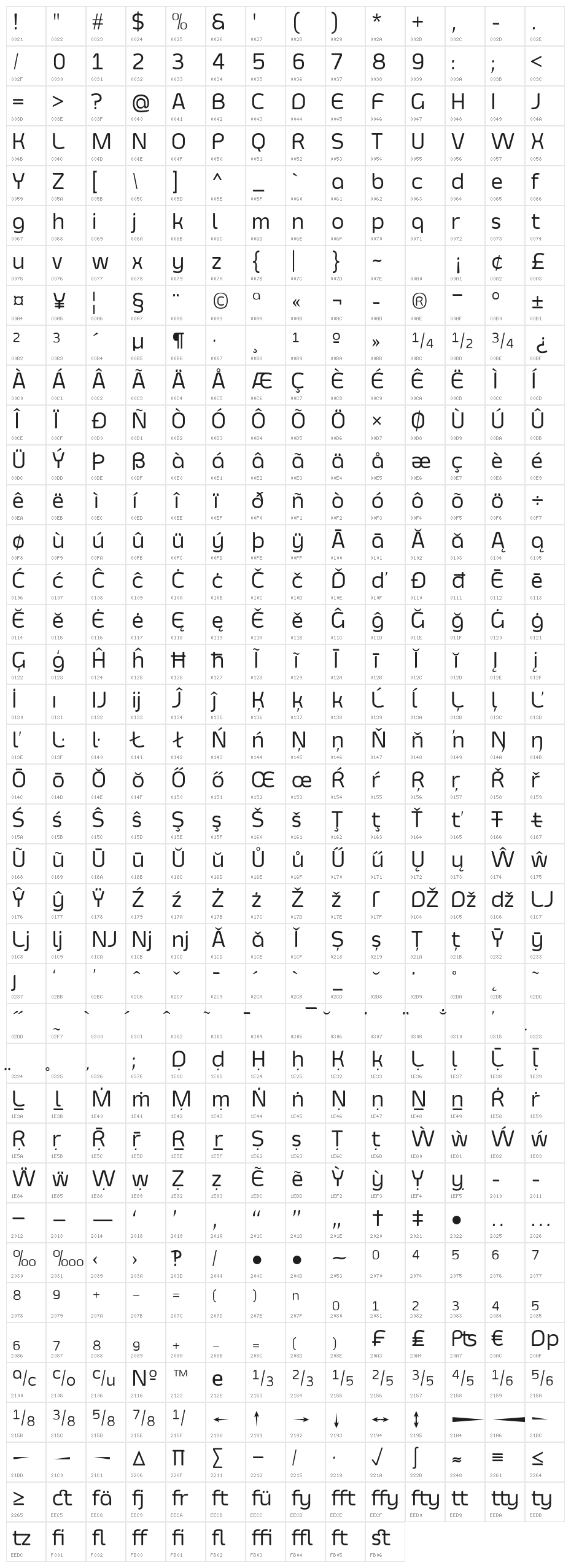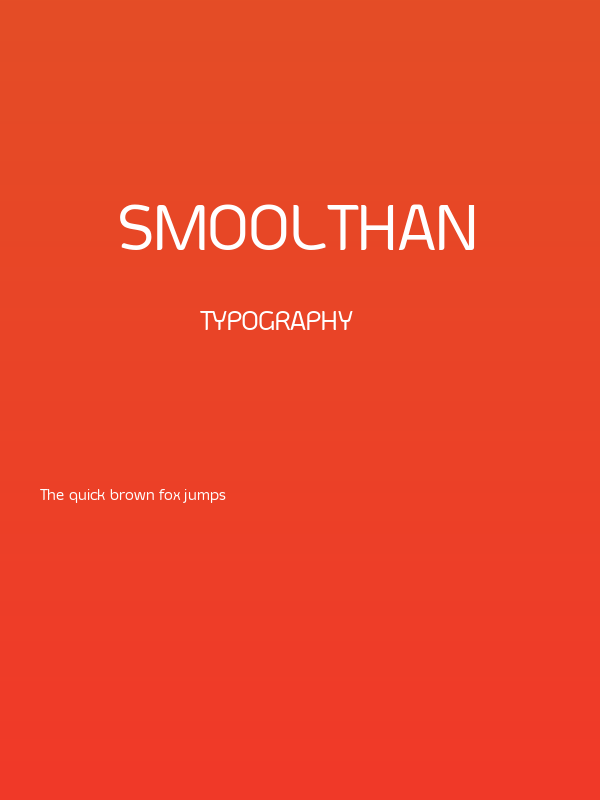
Smoolthan Font
Smoolthan Description
This font features a clean and modern sans-serif design with smooth, rounded edges and a uniform stroke width. The characters are well-proportioned, offering a harmonious balance between height and width. The uppercase letters are slightly taller than the lowercase, providing a distinct yet cohesive look. The numerals are clear and legible, making them suitable for various applications. Special characters are included, maintaining the font's consistent style. The overall appearance is sleek and contemporary, ideal for projects that require a fresh and professional aesthetic.